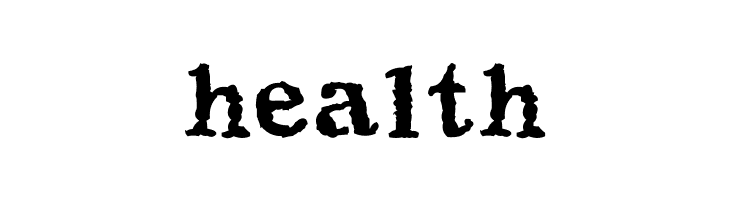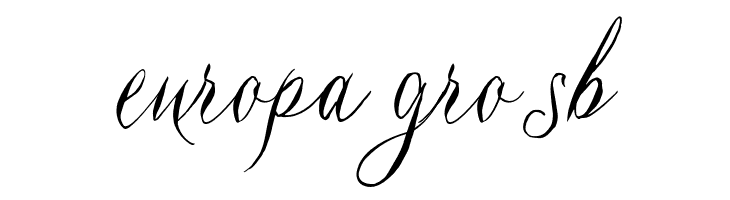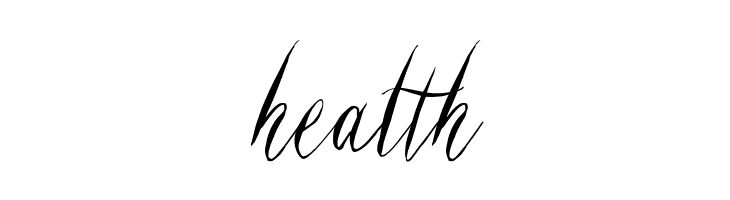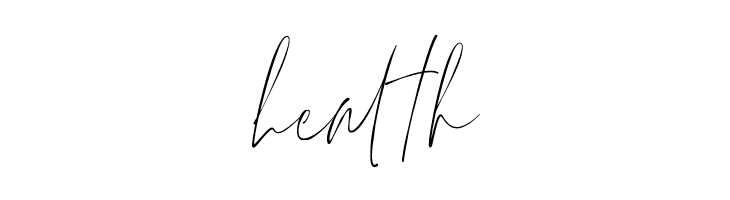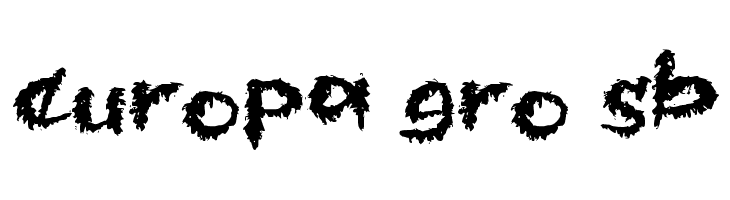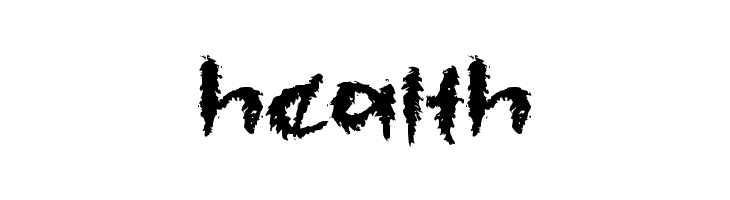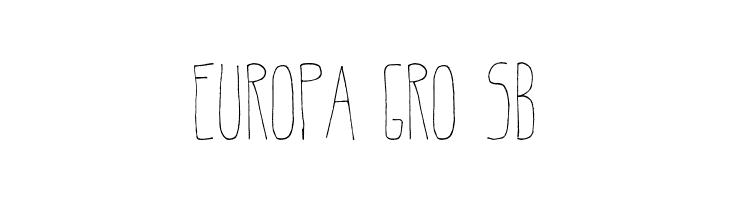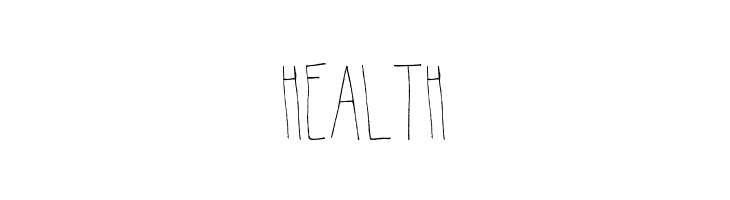
A tall, narrow, hand-drawn font with thin, elongated strokes.
A bold, distressed font with a vintage, hand-crafted appearance.
A playful, hand-drawn font with tall, narrow letterforms and a whimsical style.
A dynamic, handwritten script font with fluid strokes and artistic flair.
A bold, textured font with a hand-drawn, brush-like appearance.
A rugged, textured font with an organic, natural feel.
A dynamic and expressive cursive script with elegant, flowing lines.